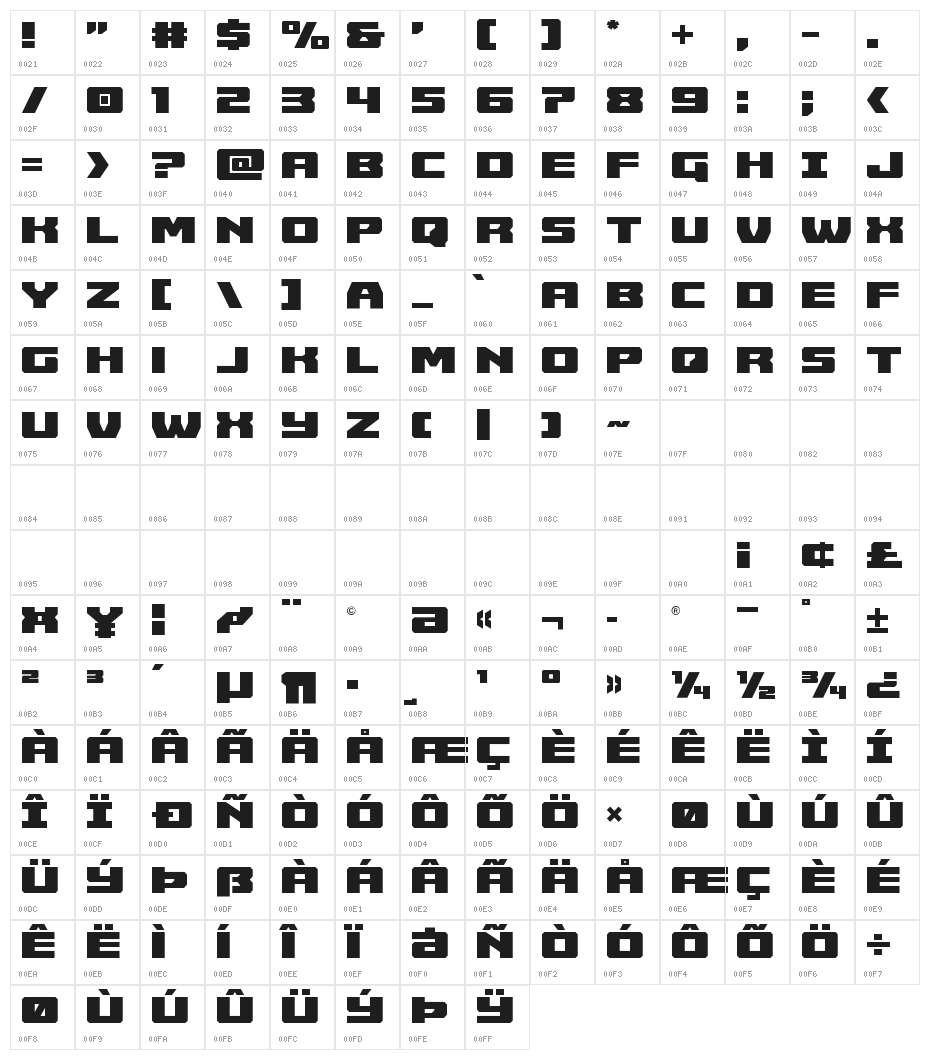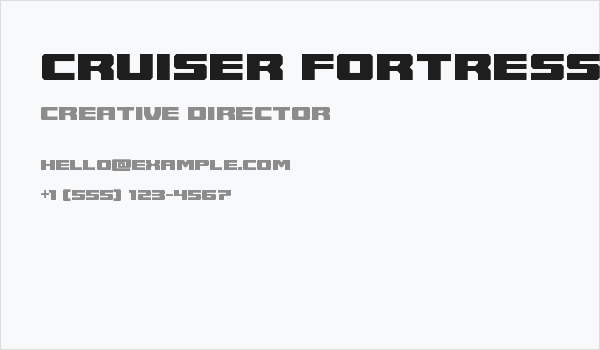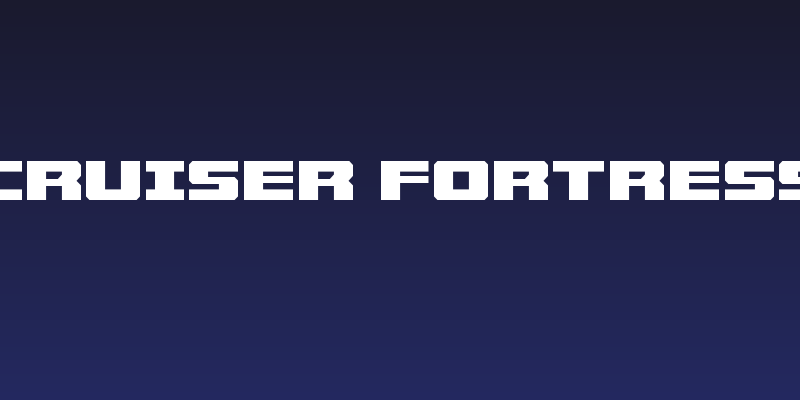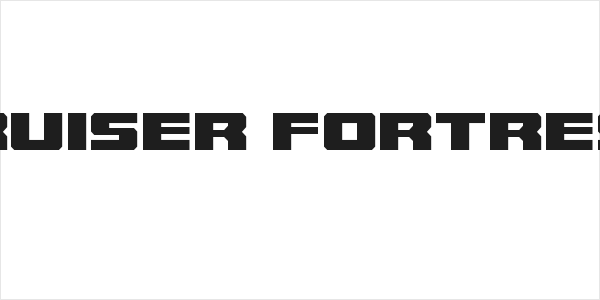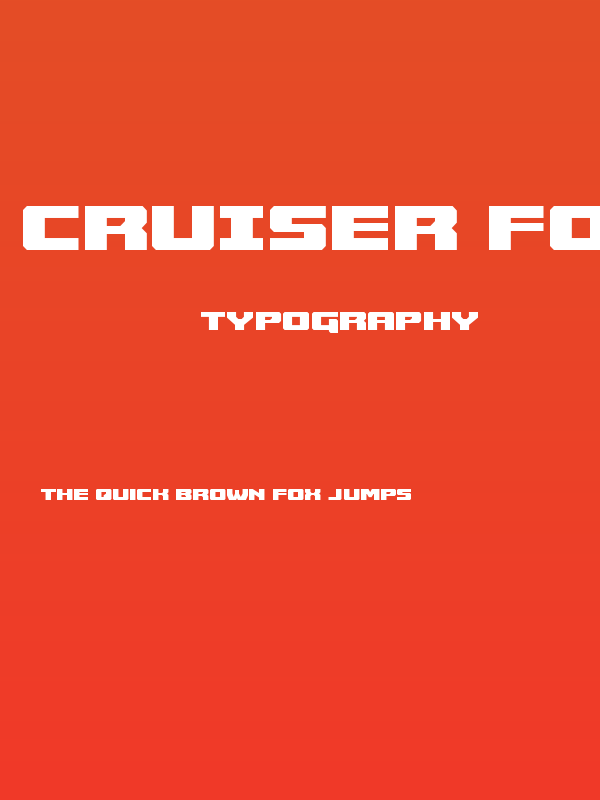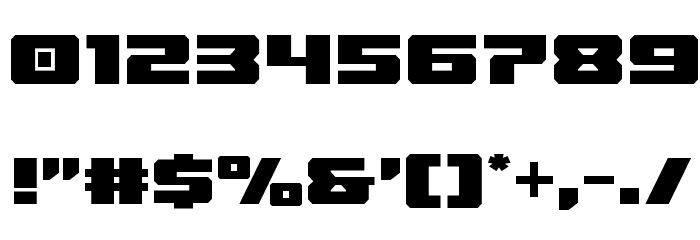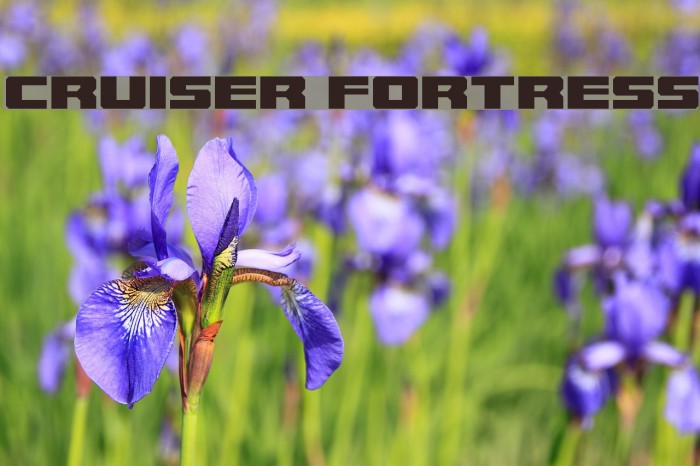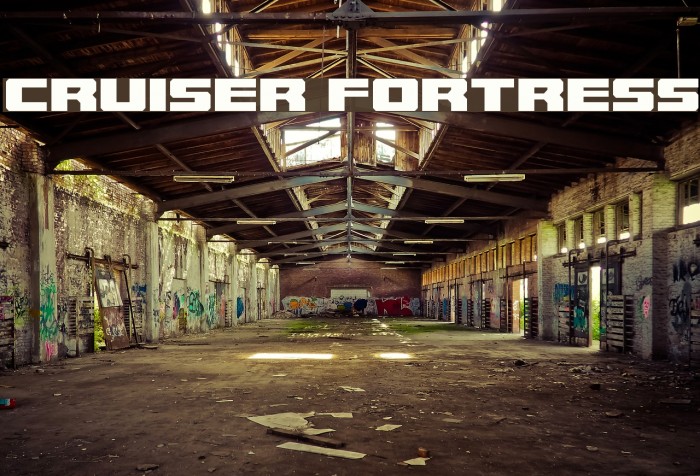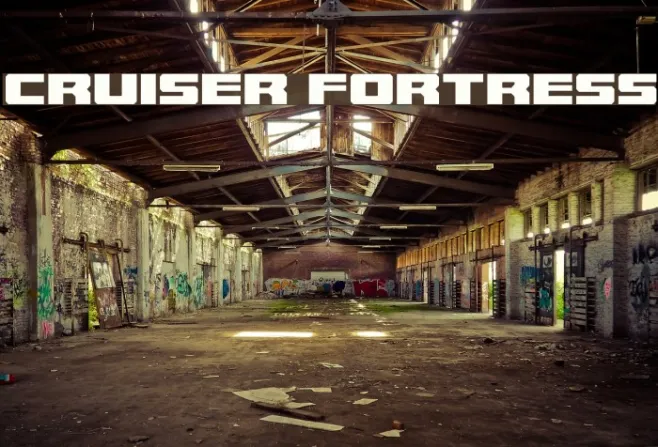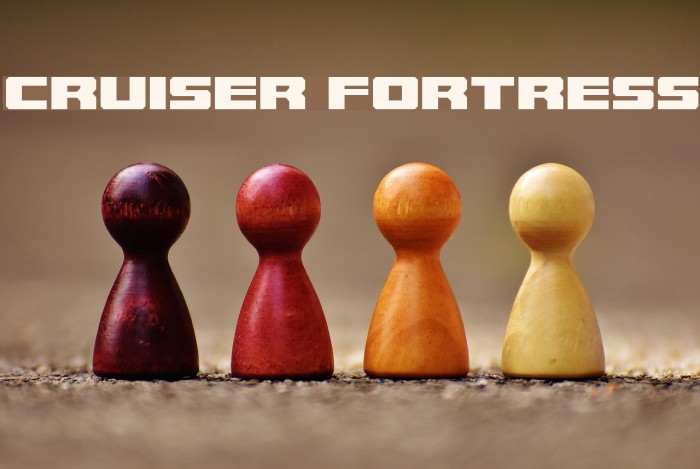
Cruiser Fortress Font
Cruiser Fortress Description
This font features a bold, geometric design with a strong, industrial feel. The characters are blocky and robust, with sharp angles and a uniform thickness that conveys strength and stability. The uppercase and lowercase letters maintain a consistent style, emphasizing a sense of cohesion and uniformity. The numerals and special characters are designed to match the boldness of the alphabet, making them stand out prominently. This font is ideal for projects that require a commanding presence and a modern, edgy look.
| Proposed Projects | Ideal for branding, posters, video game titles, and any project needing a strong, modern aesthetic. |